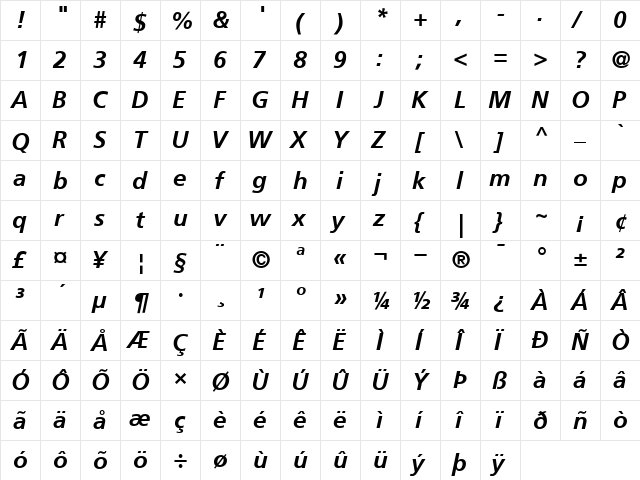
Frutiger66 BoldItalic Font Preview
Frutiger66 BoldItalic
Design Context for Frutiger66 Typeface
Frutiger66 takes a measured approach to typography — its balanced proportions and neutral character make it a reliable workhorse for both digital and print work. Its italic angle brings a sense of urgency and motion to the letterforms. Its bold stroke weight gives it real presence on the page.
Pro Tip: Use Frutiger66 for emphasis, pull quotes, and subheadings where its slanted energy can add rhythm to the layout.